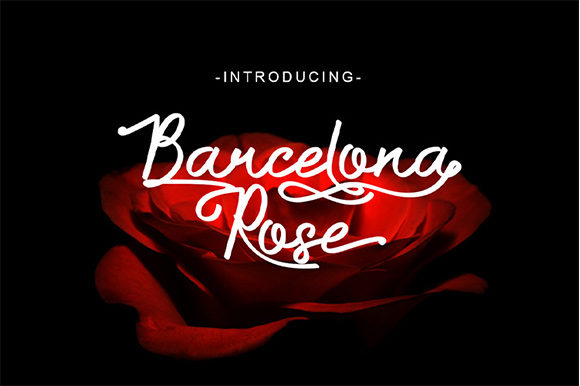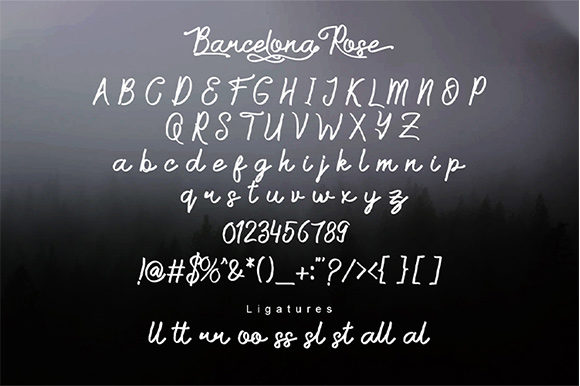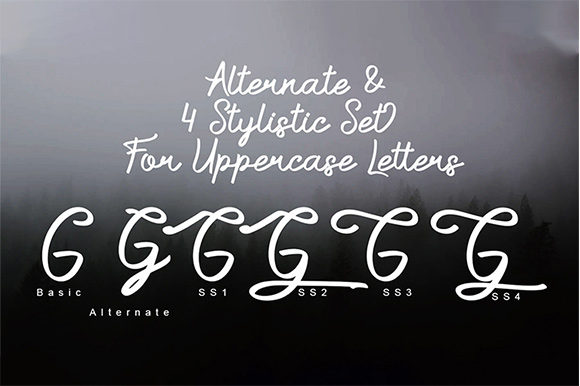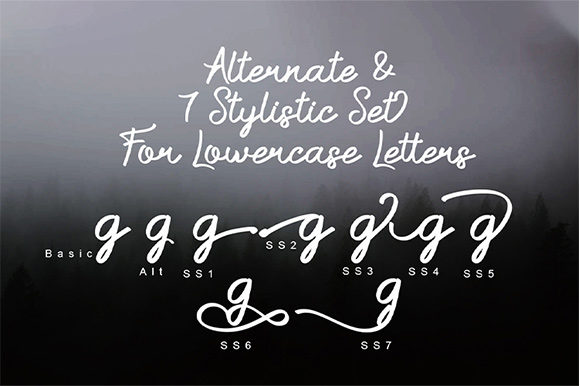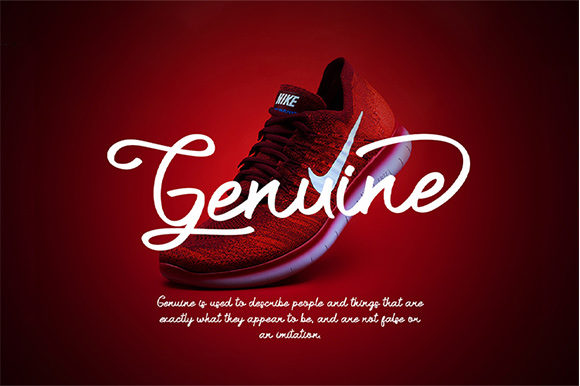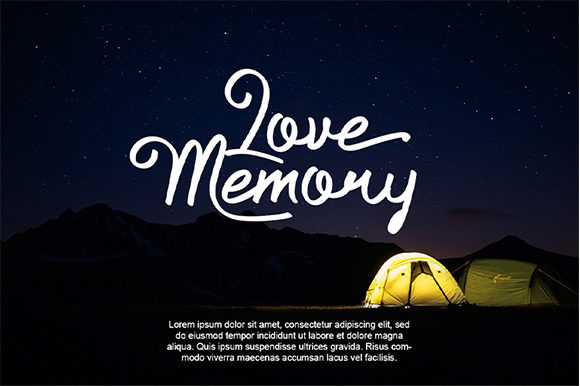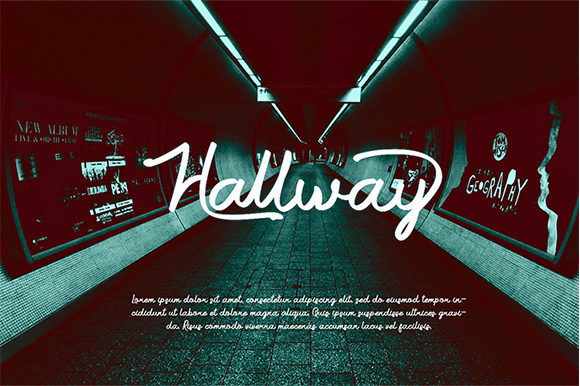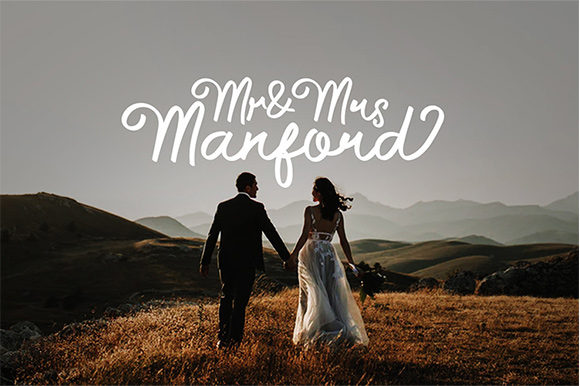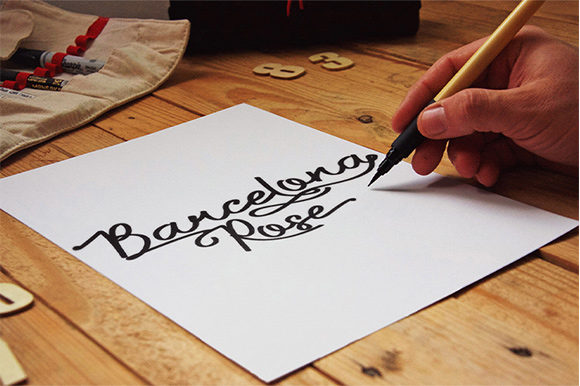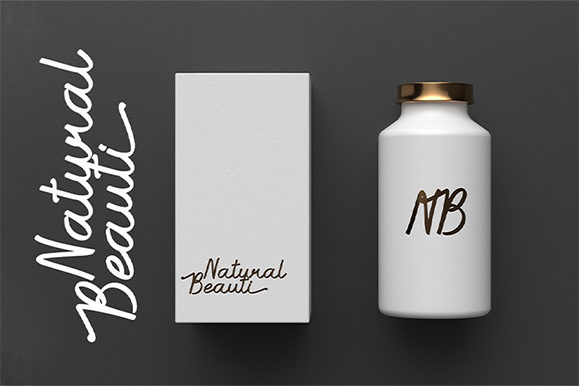
Barcelona Rose Font
About Barcelona Rose Font
Barcelona Rose script is a magical script font carefully created with a touch of elegance. This is a beautiful combination of timeless elegance and authentic calligraphy. It features an incredibly classic style, while still keeping a friendly feel.